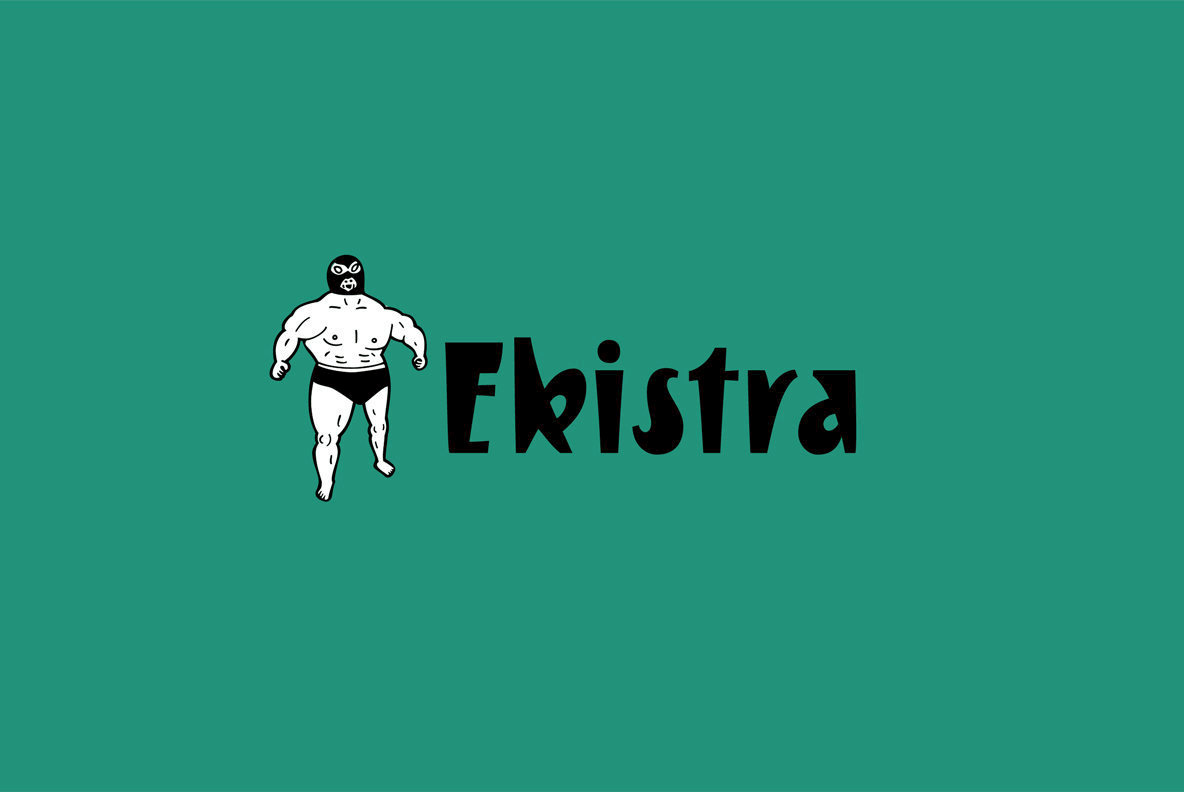
Ekistra Font
Ekistra Font is perfect for premium lifestyle branding, exclusive fashion campaigns, sophisticated editorial layouts, luxury hospitality communications, upscale retail identities, refined product packaging, elegant web typography, and distinguished advertising materials. This extraordinary typeface works magnificently in both digital applications and print media where exceptional quality and exclusive refinement are paramount design considerations.
What makes Ekistra Font so exciting is its masterful interpretation of premium exclusivity through exceptionally crafted letterforms that embody the same meticulous attention to detail and superior quality that defines luxury experiences and elite products. The font features distinguished characters with exclusive proportions, refined curves, and premium details that communicate extraordinary standards, sophisticated taste, and the uncompromising pursuit of excellence that discerning customers expect from truly exceptional brands. Its elite personality and luxury heritage make it ideal for brands seeking to establish premium positioning in exclusive markets while appealing to affluent audiences who demand nothing less than extraordinary quality.
The Ekistra Font family includes comprehensive weight variations from light to bold, along with matching italic styles and premium alternates. Each style maintains the typeface's exceptional character while offering extensive multilingual support, sophisticated numerals, luxury-focused punctuation marks, and special characters designed to enhance premium communications and exclusive branding efforts across international luxury markets.
This remarkable typeface represents the perfect convergence of exceptional craftsmanship and contemporary luxury typography for premium lifestyle and hospitality industries. Whether you're developing high-end fashion brand identities, creating luxury hospitality materials, or designing exclusive product campaigns, Ekistra Font Free Download delivers the extraordinary refinement and versatility needed for successful premium communications. The font's exclusive aesthetic makes it particularly effective for luxury brands, premium services, high-end retailers, and organizations targeting ultra-affluent customers who appreciate exceptional quality and sophisticated design excellence.
The meticulously crafted premium construction and optimized luxury performance in Ekistra Font ensure maximum sophistication while maintaining clear communication across all exclusive applications. Its extraordinary presence makes it ideal for premium branding, luxury marketing materials, and exclusive communications where its full exceptional character can create lasting impressions with audiences seeking the ultimate in refined taste and uncompromising quality standards.